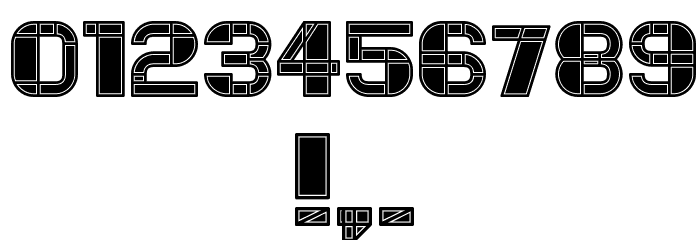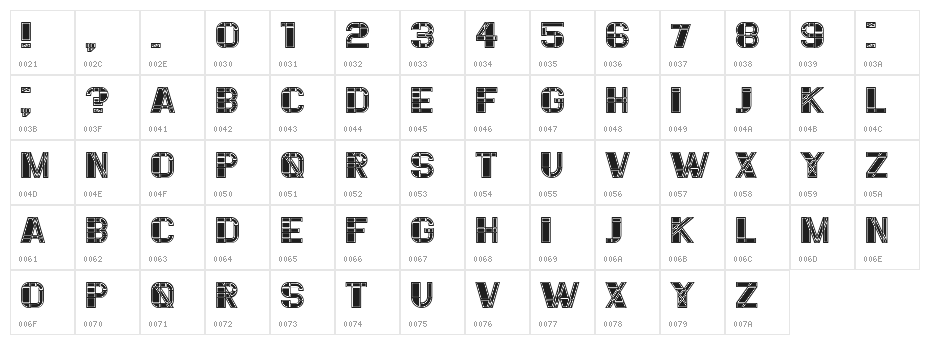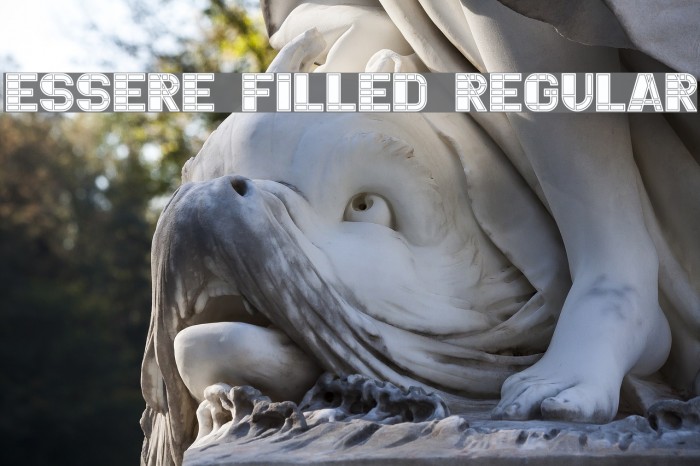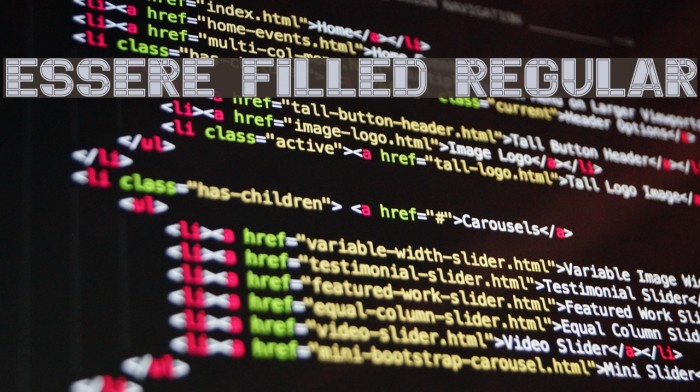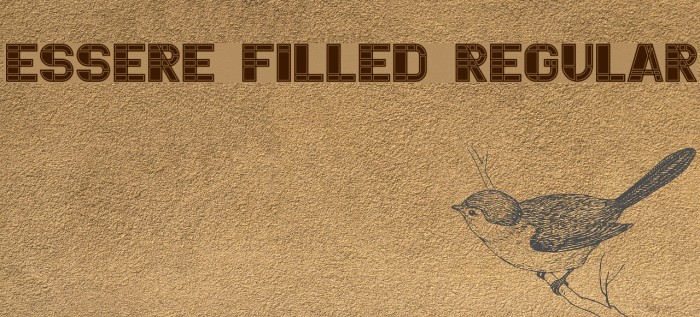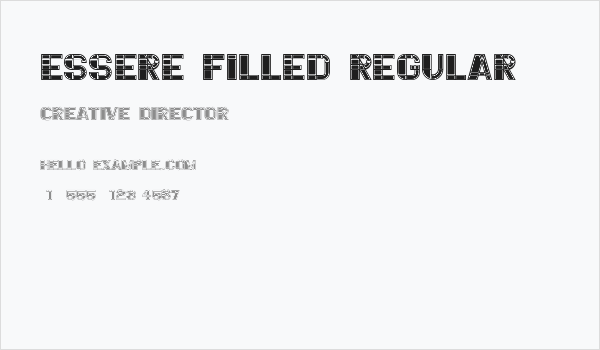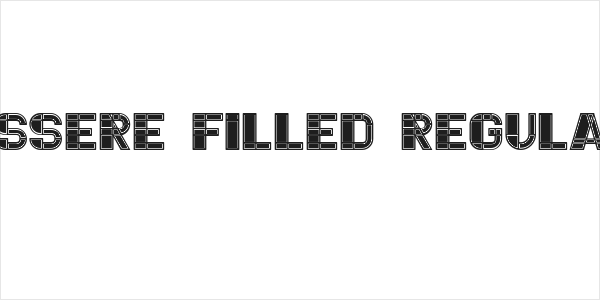
Essere Filled Regular Font
Essere Filled Regular Description
This font features a bold, geometric design with a filled pattern that creates a striking visual impact. Each character is constructed with a series of lines and shapes that form a cohesive and modern aesthetic. The uppercase and lowercase letters maintain a consistent style, while the numbers and special characters complement the overall look. The design is highly decorative, making it ideal for projects that require a strong visual presence. The font's unique filled pattern adds depth and dimension, making it stand out in any design context.
| Proposed Projects | Ideal for branding, posters, headlines, and any design requiring a bold statement. |